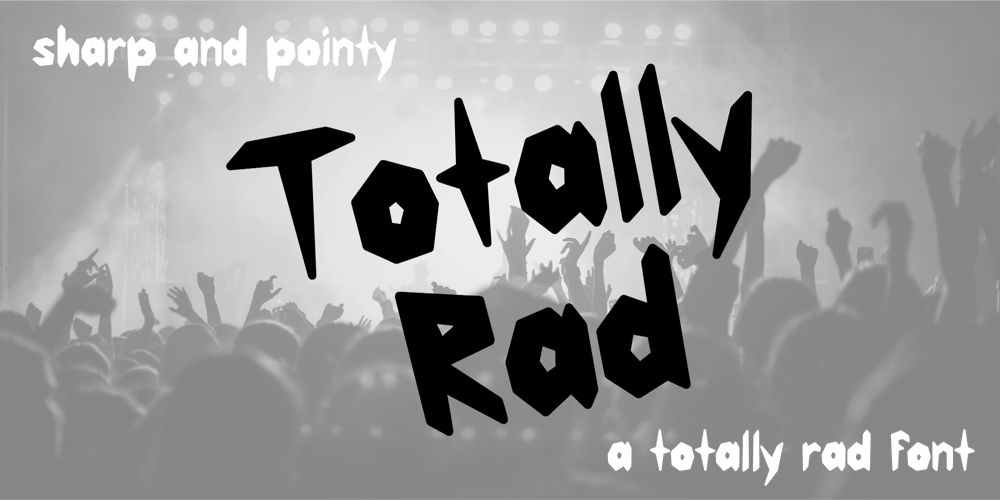
Totally Rad Font Family was designed by Jess J and published by Type Avenue. Totally Rad contains 1 styles and family package options. It’s sharp and pointy! This font is anything but minimal, it has an edgy personality with asymmetrical qualities. This edgy font is perfect to use for a band or an edgy poster.